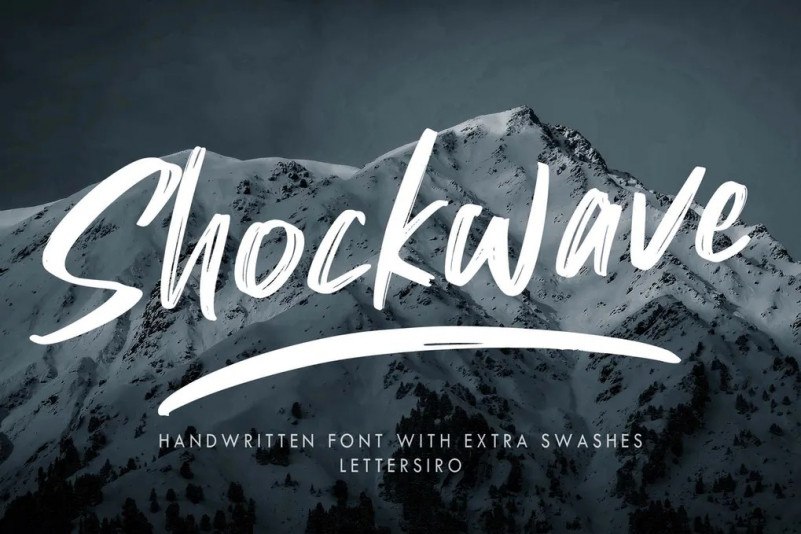
Shockwave Font
Shockwave is a bold and beautiful handwritten font with an incredibly organic feel. It will put a strong and urban twist on any design project!